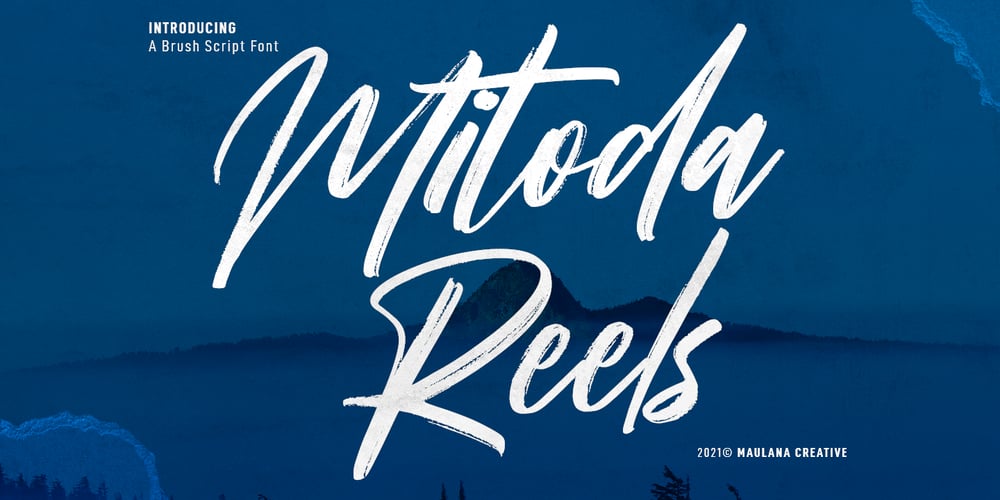
Mitoda Reels Font Family was designed by Gilang Maulana and published by Maulana Creative. Mitoda Reels contains 1 styles and family package options. Mitoda Reels is a fancy brush script font. With rough brush stroke, fun character with a bit of ligatures and lowercase alternates. To give you an extra creative work. Mitoda Reels font support multilingual more than 100+ language. This font is good for logo design, Social media, Movie Titles, Books Titles, a short text even a long text letter and good for your secondary text font with sans or serif. Make a stunning work with Mitoda Reels.Cheers, MaulanaCreative